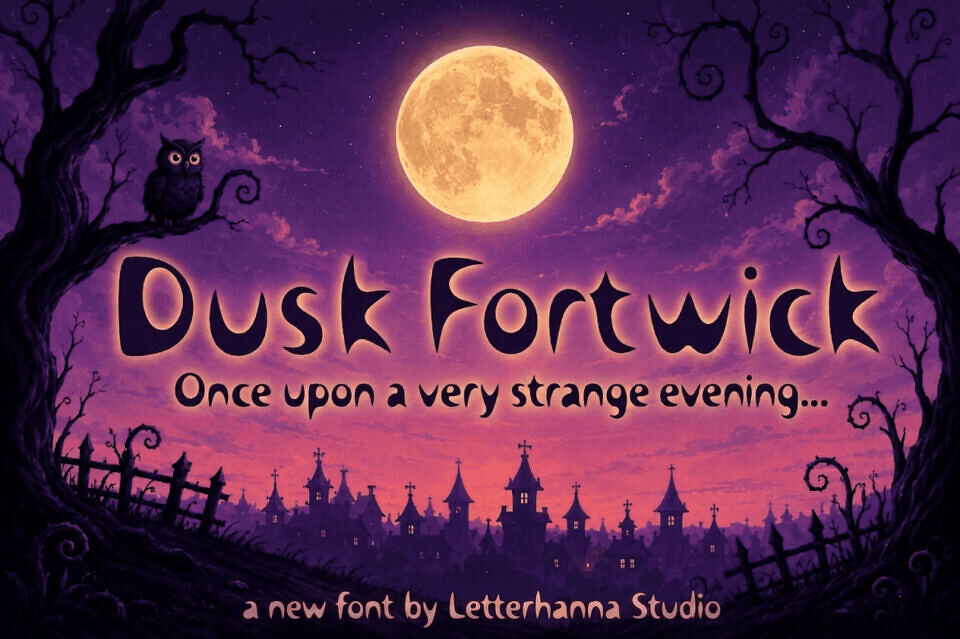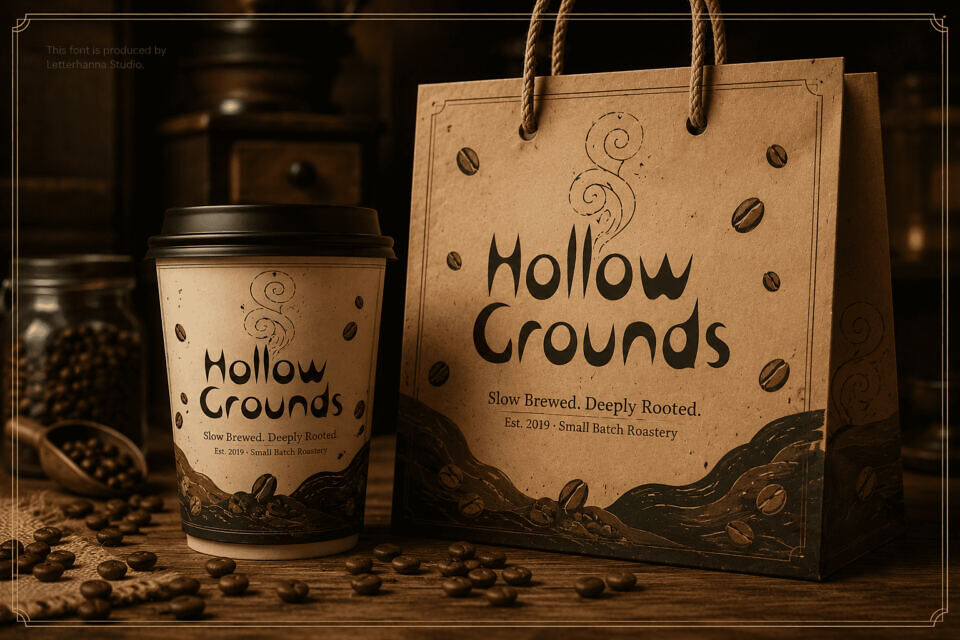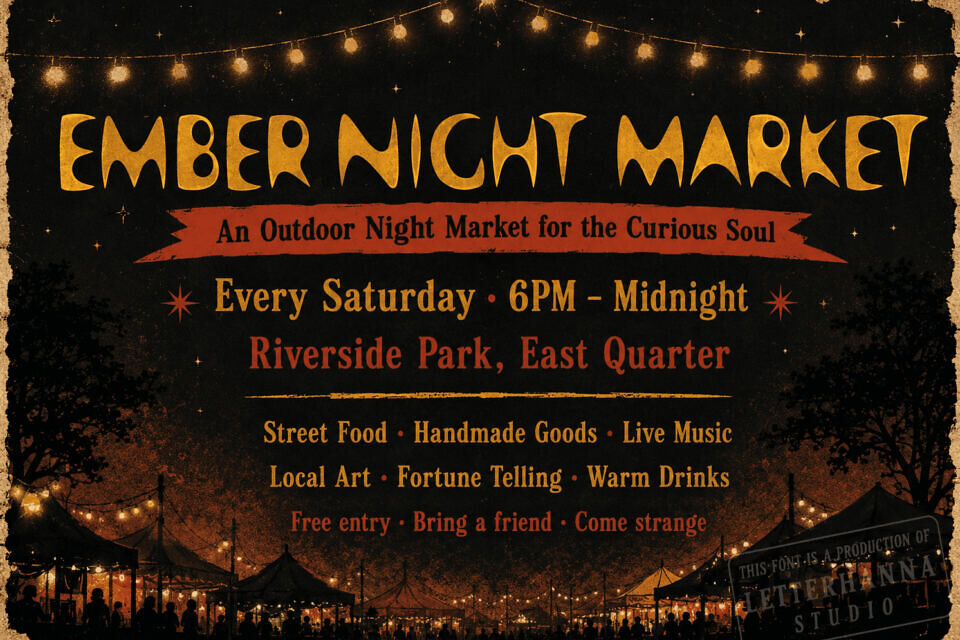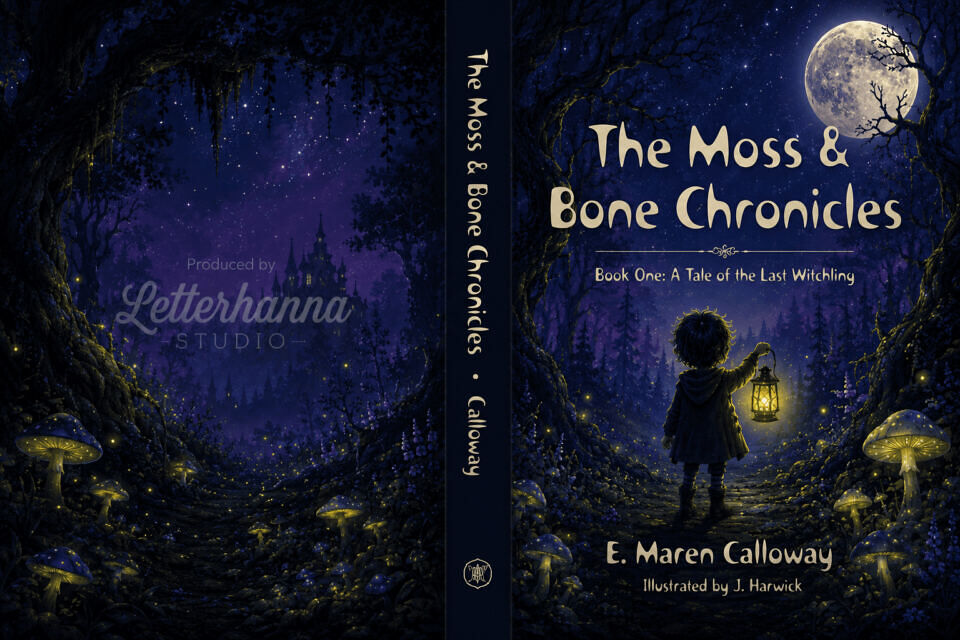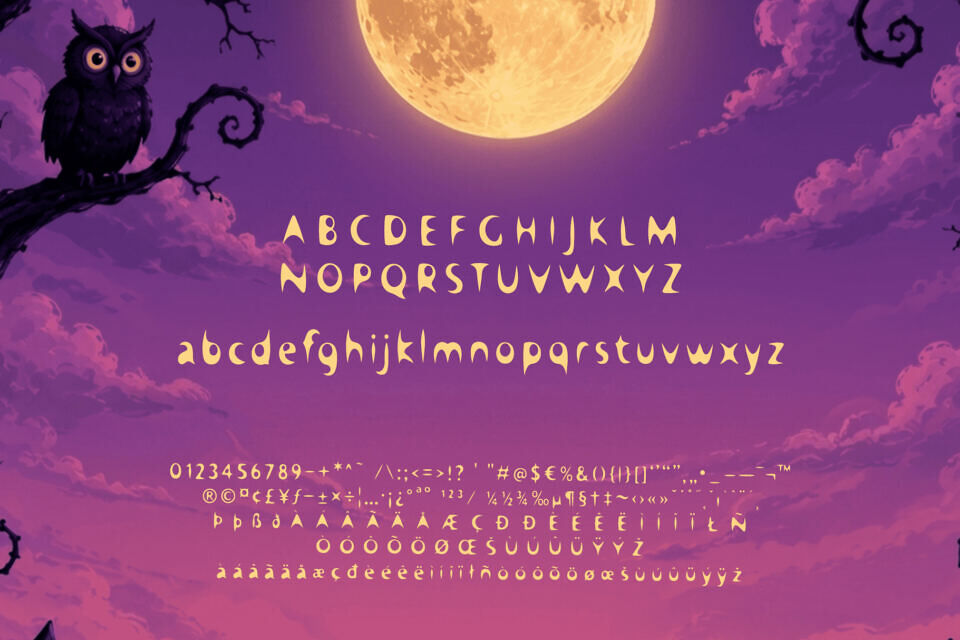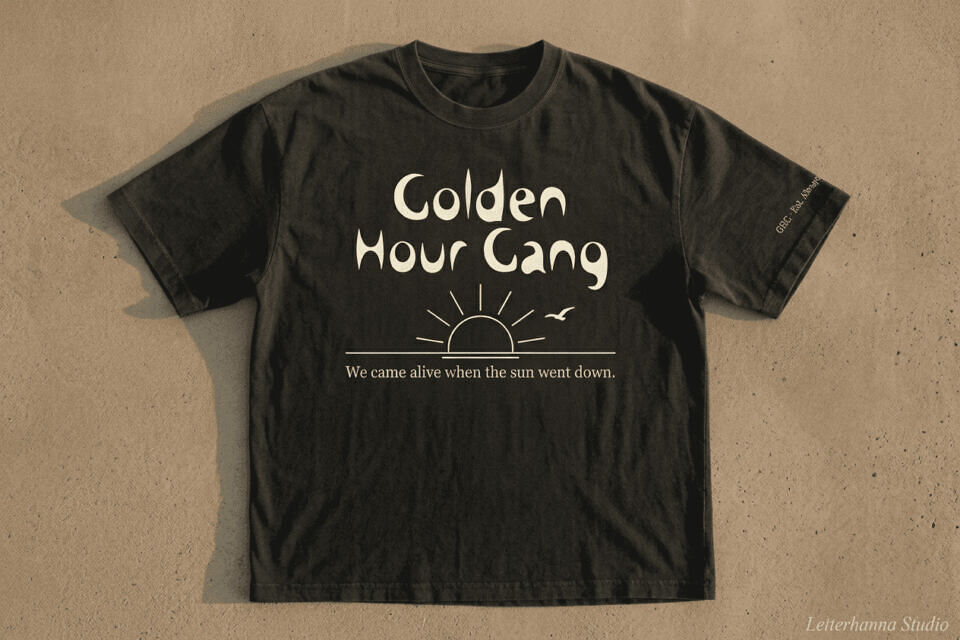
Dusk Fortwick Font
Introducing Dusk Fortwick, a bold font with a sharp edge. Designed for those who dare to be different, its unique curves and points create a dramatic presence. With deep ink traps, it produces striking shadows, making each word feel alive.
Perfect for edgy designs, Dusk Fortwick adds instant personality to horror games, streetwear logos, and more. Use it large and bold for maximum impact, and let its distinctive style speak volumes. It includes full character sets and smooth curves for versatile use.